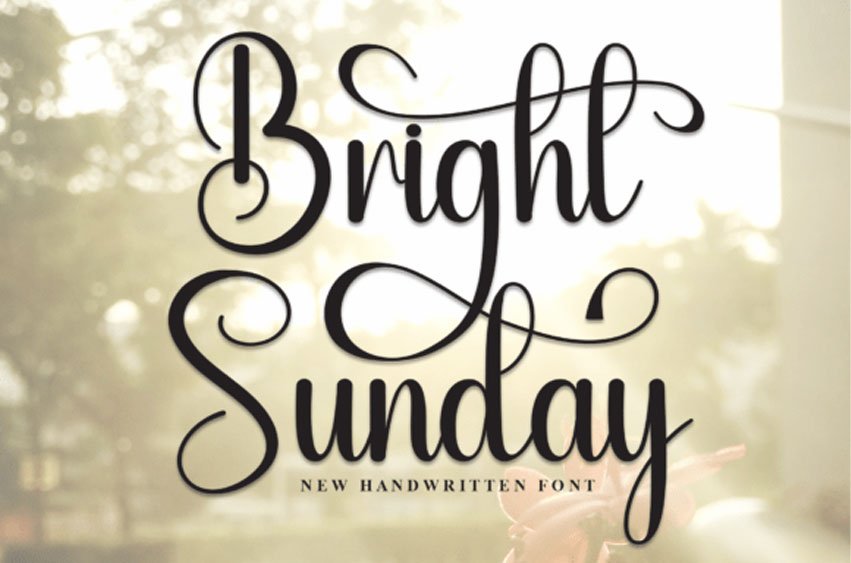
Bright Sunday Font is a charming script handwritten font that brings a personal, elegant touch to your designs.
With smooth curves, natural flow, and a slightly casual style, it feels like it was written with care, making it ideal for wedding invitations, personal branding, greeting cards, and lifestyle blog graphics. Its versatility shines in both romantic and modern aesthetics.